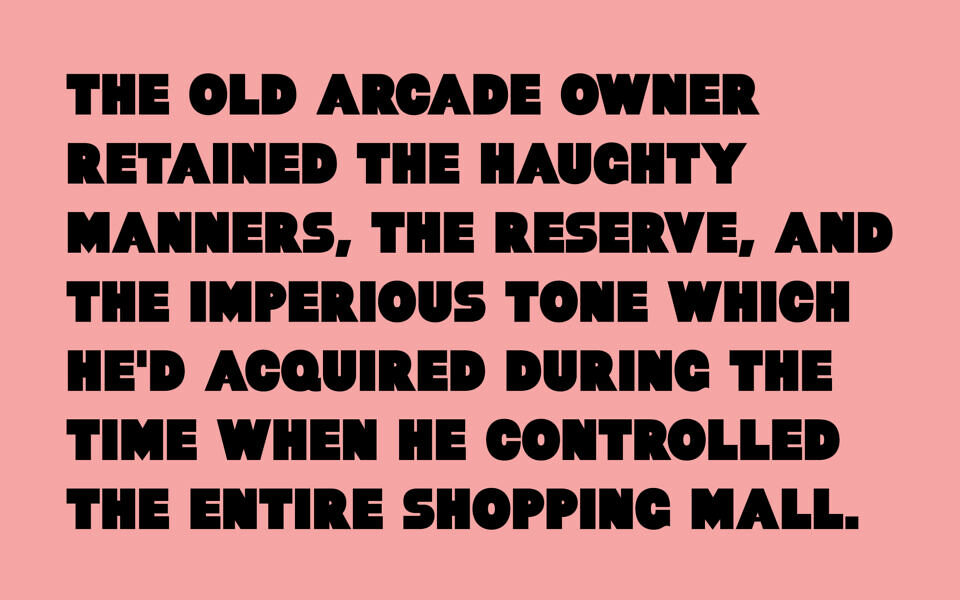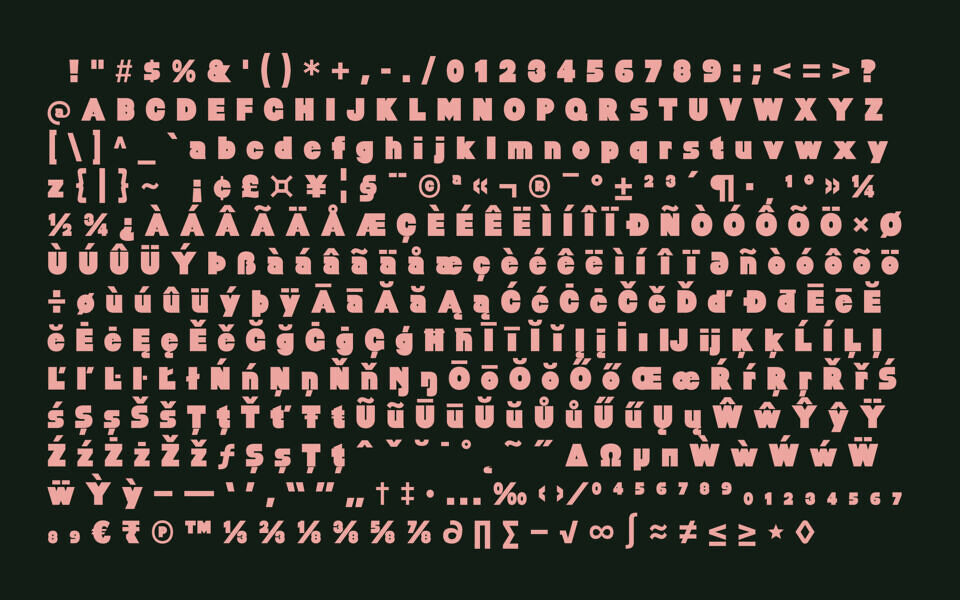
Baltar Font
Baltar is a very heavy sans-serif typeface with a lot of eccentricities. Counters and gaps are strategically filled to provide weight while maintaining legibility. Baltar is very effective when combined with daring color choices.